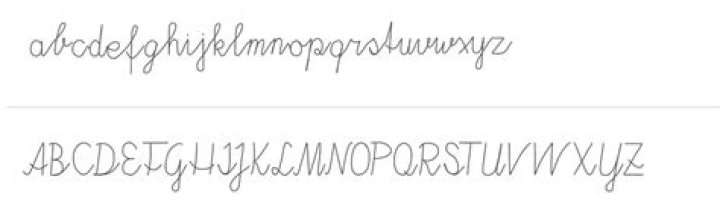
1. Leslie's Hand Teacher Font - Modeled after my own handwriting that I use in the classroom, this simple and clean font is what I consider just-right for kindergarten. It's a Zaner-Bloser style of forming letters.
Keeping this in view, what font is closest to manuscript?
Times New Roman
Additionally, what font is closest to handwriting without tears? EFI HWT Cursive - A cursive font in the style of Handwriting Without Tears® EFI HWT Manuscript - A manuscript font in the style of Handwriting Without Tears®
Is Zaner-Bloser ball and stick?
Zaner-Bloser Above
The letters we see in books are written in the “stick and ball” style.
What is the hardest to read font?
Sans Forgetica
Is Handwriting Without Tears D nealian?
D'Nealian is a handwriting curriculum in which many letters have added tails. In fact, Zaner-Bloser's approach to lowercase letter formation is now similar to that of Handwriting Without Tears, but with different teaching methods and materials.
What is the best font for preschool?
The 10 Best Child-Friendly Fonts for Kids (and where to find them
1. Comic Sans MS.
2. Sassoon Primary.
3. Gill Sans Infant Std.
4. Andika.
5. Futura.
6. KG Neatly Printed.
7. Mulish.
8. Architect's Daughter.
What is the difference between Zaner Bloser and D nealian?
We often get asked about the differences between Zaner Bloser and D'Nealian. Basically there are two differences: slant and shape. D'Nealian is written at a slight slant in both manuscript printing and cursive. Zaner Bloser is written straight up and down in manuscript printing and slanted in cursive.
What is D nealian writing?
D'Nealian, sometimes misspelled Denealian, is a style of writing and teaching cursive and manuscript ("print" and "block") handwriting for English. It derived from the Palmer Method and was designed to ease the learning of manuscript and cursive handwriting.
What is ball and stick handwriting?
The Ball-and-Stick Method
As an example, the letter b is taught by drawing a vertical line followed by lifting the pencil to draw a circle. A growing number of letter reversals (where a child confuses the b with the d and the p with the q) has increased with the introduction of the "ball-and-stick" handwriting method.
Do schools still teach D nealian?
Now, 28 years later, D'Nealian handwriting is hardly a classroom fixture. But, among schools that use a formal system for teaching handwriting, the D'Nealian system finally appears to have made a dent.